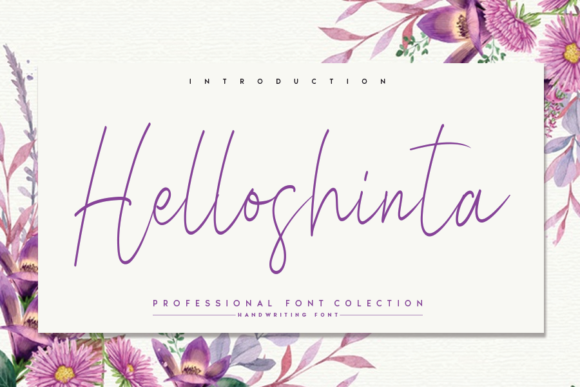
Introducing Helloshinta Font: The Epitome of Elegance and Style for Your Creative Endeavors
Journey into the realm of exquisite typography with Helloshinta Font, a masterpiece crafted by andikastudio, specifically tailored to elevate your YouTube logo to unprecedented heights. This enchanting script font seamlessly blends the timeless beauty of calligraphy with a modern, refreshing touch, ensuring your logo radiates an aura of sophistication and charm.
Helloshinta Font is not merely a collection of letters; it's an expression of artistry, a symphony of strokes that dances across the screen, captivating the eyes and igniting the imagination. Its graceful curves and delicate flourishes evoke a sense of elegance and refinement, while its contemporary design ensures it remains relevant and impactful in the ever-evolving digital landscape.
Unleash the True Potential of Your YouTube Channel with Helloshinta Font
In a world saturated with visual content, your YouTube logo is the beacon that guides viewers to your channel, the gateway to your creative universe. With Helloshinta Font, you have the power to transform your logo into a work of art, a visual masterpiece that reflects the essence of your channel and leaves a lasting impression on your audience.
Helloshinta Font's inherent versatility knows no bounds, effortlessly adapting to a myriad of design aesthetics. Whether your channel focuses on lifestyle, fashion, travel, or gaming, Helloshinta Font seamlessly blends with your content, enhancing its visual appeal and reinforcing your brand identity. Its timeless charm transcends genres, ensuring your logo remains captivating and relevant, regardless of the ever-changing trends in visual design.
Craft a YouTube Logo that Radiates Authenticity and Distinction
With Helloshinta Font, authenticity is not an aspiration; it's an inherent quality. Its meticulously crafted characters exude a sense of genuineness and sincerity, inviting viewers to connect with your channel on a deeper level. Helloshinta Font's unique design sets your logo apart from the countless generic fonts, allowing you to carve out a distinct niche in the vast digital realm.
The beauty of Helloshinta Font lies in its ability to evoke emotions, to stir the imagination, and to create a lasting connection with your audience. Its elegant strokes and enchanting curves create a visual narrative that captivates viewers, leaving them eager to explore the treasures your YouTube channel holds.
Experience the Helloshinta Font Difference Today: Elevate Your YouTube Channel to New Heights
Helloshinta Font is more than just a font; it's an investment in the success of your YouTube channel. Its timeless design, emotional resonance, and unwavering authenticity will elevate your logo to new heights, attracting viewers, boosting engagement, and propelling your channel towards unprecedented growth.